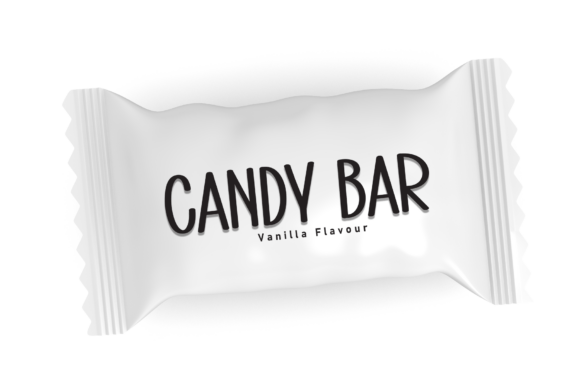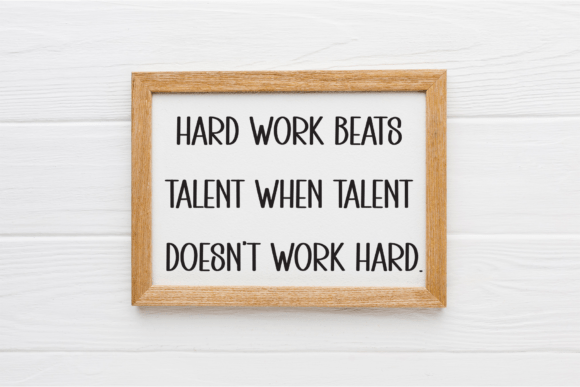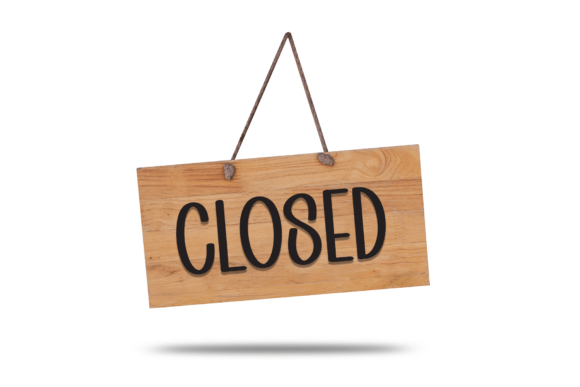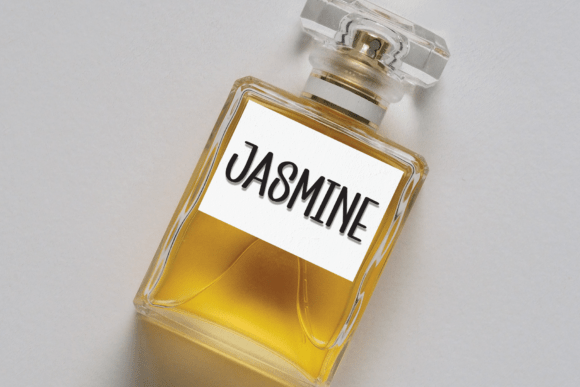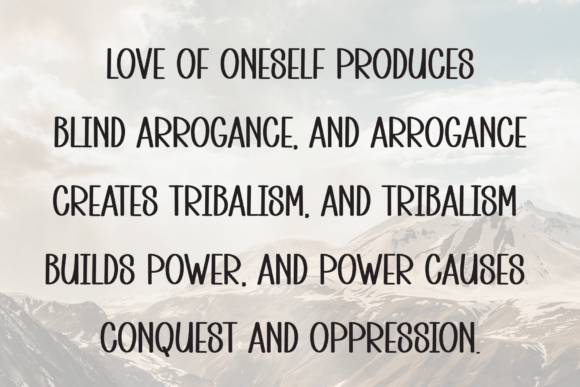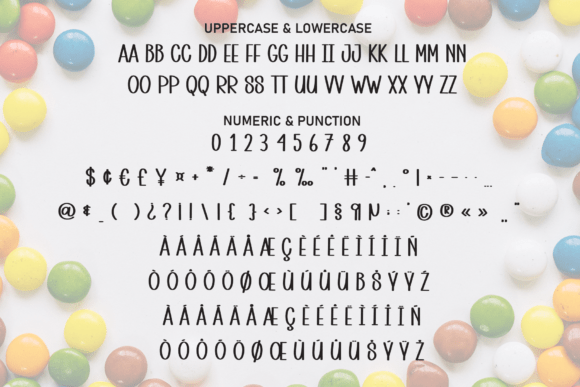
Candy Rainbow Font: Adding a Pop of Personality to Your Designs
Are you tired of using the same old fonts in your designs? Do you want to add a touch of personality and whimsy to your logos, social media graphics, and posters? Look no further than the Candy Rainbow Font, a display handwritten font that bursts with charm and character.
A Font that Captures the Warmth of Real Handwriting
The Candy Rainbow Font is designed to capture the warmth and authenticity of real handwriting. With its bold, eye-catching strokes, this font is perfect for designers and crafters who want to add a personal touch to their designs. Whether you’re creating a logo, social media graphic, or poster, this font is sure to stand out while maintaining a natural flow.
The Candy Rainbow Font is versatile and can be used for a variety of design projects. Here are some ideas to get you started:
- Logos: Add a personal touch to your logo with the Candy Rainbow Font. Its bold strokes and playful vibe make it perfect for businesses that want to stand out.
- Social Media Graphics: Create eye-catching social media graphics with the Candy Rainbow Font. Its fun and playful vibe is sure to grab the attention of your followers.
- Posters: Add a pop of color and personality to your posters with the Candy Rainbow Font. Its bold strokes and whimsical vibe make it perfect for promoting events, products, or services.
Bringing Authenticity and Flair to Your Design
The Candy Rainbow Font brings authenticity and flair to your design. Its handwritten strokes and playful vibe make it perfect for designers and crafters who want to add a personal touch to their work. Whether you’re crafting a heartfelt quote or branding a creative product, this font is sure to bring your design to life.
Why Choose the Candy Rainbow Font?
Here are just a few reasons why you should choose the Candy Rainbow Font for your next design project:
- Unique and Playful: The Candy Rainbow Font is a unique and playful font that is sure to stand out in any design.
- Easy to Read: Despite its bold strokes, the Candy Rainbow Font is easy to read, making it perfect for designs that require a clear message.
- Versatile: The Candy Rainbow Font can be used for a variety of design projects, from logos and social media graphics to posters and more.
- Authentic: The Candy Rainbow Font captures the warmth and authenticity of real handwriting, making it perfect for designers and crafters who want to add a personal touch to their work.
Tips for Using the Candy Rainbow Font
Here are a few tips for using the Candy Rainbow Font in your designs:
- Use it sparingly: While the Candy Rainbow Font is bold and eye-catching, it can be overwhelming if used too much. Use it sparingly to add a pop of personality to your design.
- Pair it with other fonts: The Candy Rainbow Font pairs well with other fonts, such as sans serif fonts. Experiment with different font combinations to find the perfect look for your design.
- Experiment with colors: The Candy Rainbow Font comes in a variety of colors, but you can also experiment with different colors to find the perfect look for your design.
The Candy Rainbow Font is a unique and playful font that is sure to add a pop of personality to your designs. With its bold strokes and whimsical vibe, it’s perfect for designers and crafters who want to add a personal touch to their work. Whether you’re creating a logo, social media graphic, or poster, this font is sure to stand out while maintaining a natural flow. So why not give it a try and see how it can bring authenticity and flair to your design?